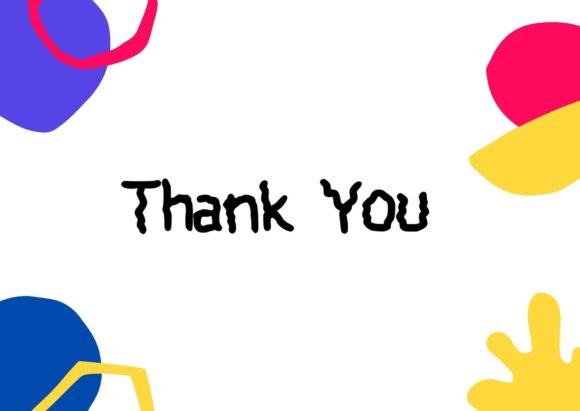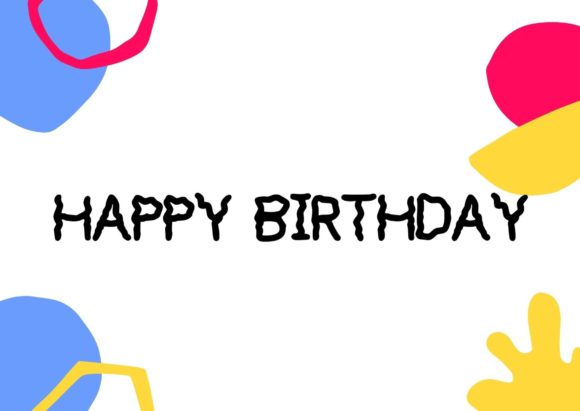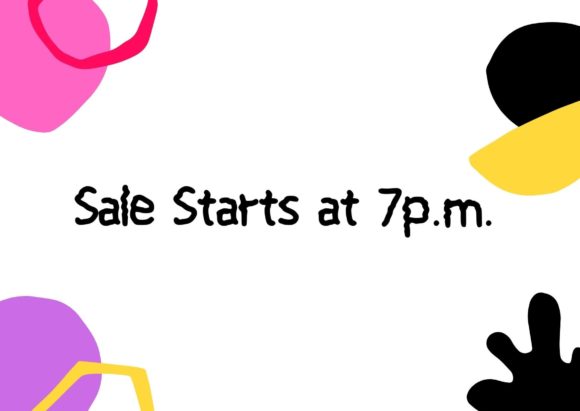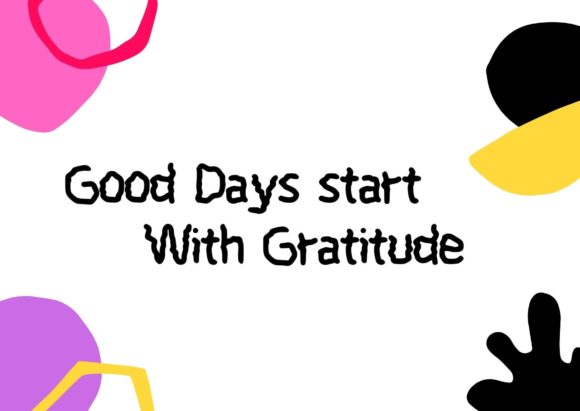
The Perfect Brush Stroke: Discovering the Beauty of Curvy Font
Have you ever been working on a design project, pouring your heart and soul into every detail, and then – suddenly – you come across the perfect font that elevates the entire piece? For many designers, that moment is pure magic. And that’s exactly what happens when you add the Curvy Font to your toolkit.
This wavy and delicate handwritten font is a versatile treasure that can breathe new life into any creation, whether it’s a wedding invitation, a social media post, or a logo. Its unique, flowing curves make it an instant favorite among designers, who appreciate its ability to add a touch of whimsy and personality to their work. Whether you’re a seasoned pro or just starting out, the Curvy Font is an incredible asset to have in your font library.
Key Features of Curvy Font
- Font Family: Curvy Font is a unique, hand-drawn font family that offers a range of styles and weights.
- Unique Characteristics: Curvy Font features a distinctive, flowing design with rounded edges and subtle curves, perfect for creative and elegant typography.
- Font Pairing: Curvy Font pairs well with a variety of font styles, including sans-serif, serif, and script fonts, making it a versatile choice for designers and typographers.
Designer Review: Curvy Font
Overall, I’m impressed with Curvy Font. It’s a great option for designers looking to add a touch of elegance and sophistication to their projects. ✨ The font’s curvaceous lines and flowing shapes create a sense of movement and fluidity that’s perfect for branding, packaging, and other visual materials.
- Unique and eye-catching design that sets it apart from more traditional fonts
- Highly customizable, with a wide range of weights and styles to choose from
- Works well in both digital and print applications
- Great for creating a sense of luxury and high-end quality
- May not be suitable for projects that require a more straightforward or utilitarian approach
- Can be difficult to read in certain font sizes or at low resolutions
- Not as versatile as some other fonts, which may limit its use in certain contexts
Overall, I’d recommend Curvy Font to designers who want to add a touch of elegance and sophistication to their projects. While it may not be the best choice for every project, it’s definitely worth considering for the right application.
Curvy Font is perfect for:
– Creating eye-catching titles and headings.
– Designing custom logos and brand identities.
– Adding a touch of whimsy and personality to your designs.
– Creating custom graphics and illustrations.
Alternatives to Curvy Font for Designers
Pacifico is a beautiful, elegant script font perfect for creating a warm and inviting atmosphere. It’s ideal for use in headings, logos, and titles where you want to add a touch of sophistication.
Compared to Curvy Font, Pacifico is more refined and has a more consistent flow, making it a better choice for formal designs. It also has a wider range of weights and styles to choose from.
Carolyna Pro is a modern, elegant script font that’s perfect for creating a luxurious and high-end feel. It’s ideal for use in branding, advertising, and packaging where you want to add a touch of glamour.
Compared to Curvy Font, Carolyna Pro is more versatile and has a wider range of applications. It’s also more customizable, allowing you to adjust the font’s style and layout to suit your needs.
Great Vibes is a fun, energetic script font that’s perfect for creating a lively and playful atmosphere. It’s ideal for use in social media, blog posts, and other digital content where you want to add a touch of whimsy.
Compared to Curvy Font, Great Vibes is more casual and relaxed, making it a better choice for informal designs. It’s also more suitable for digital content, where a more dynamic and attention-grabbing font is needed.
How do I access the special features and ligatures in Curvy Font?